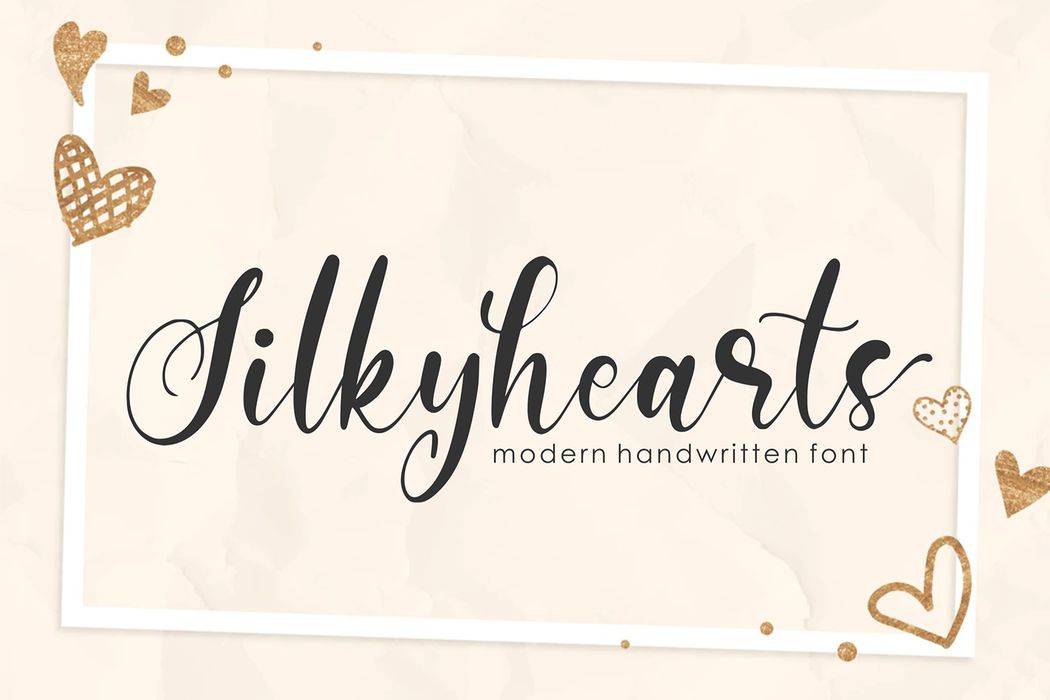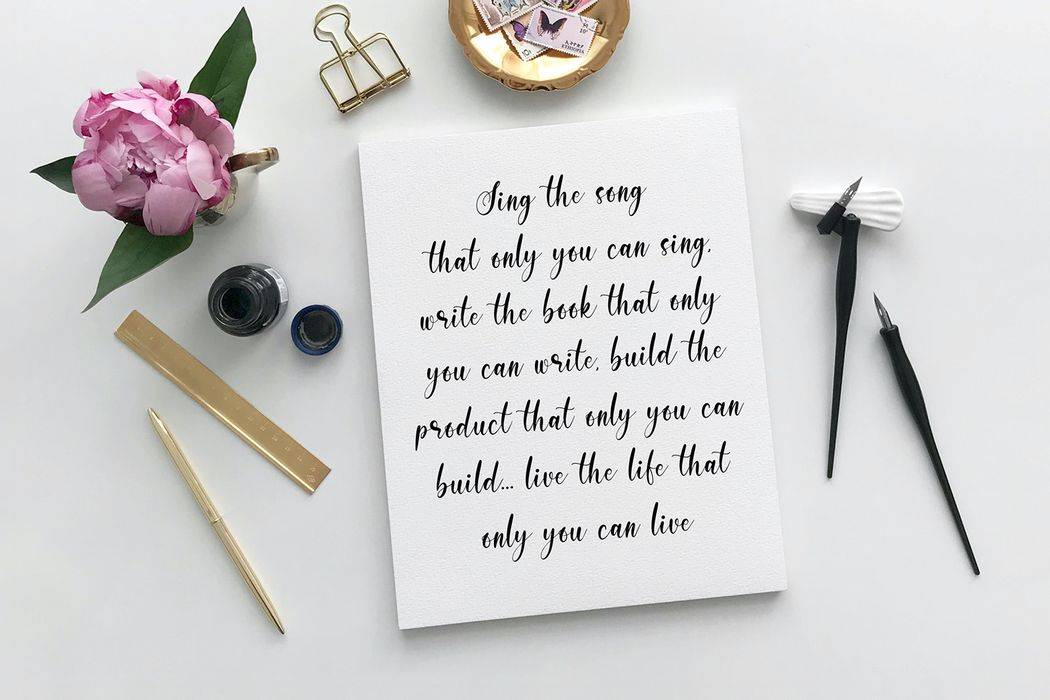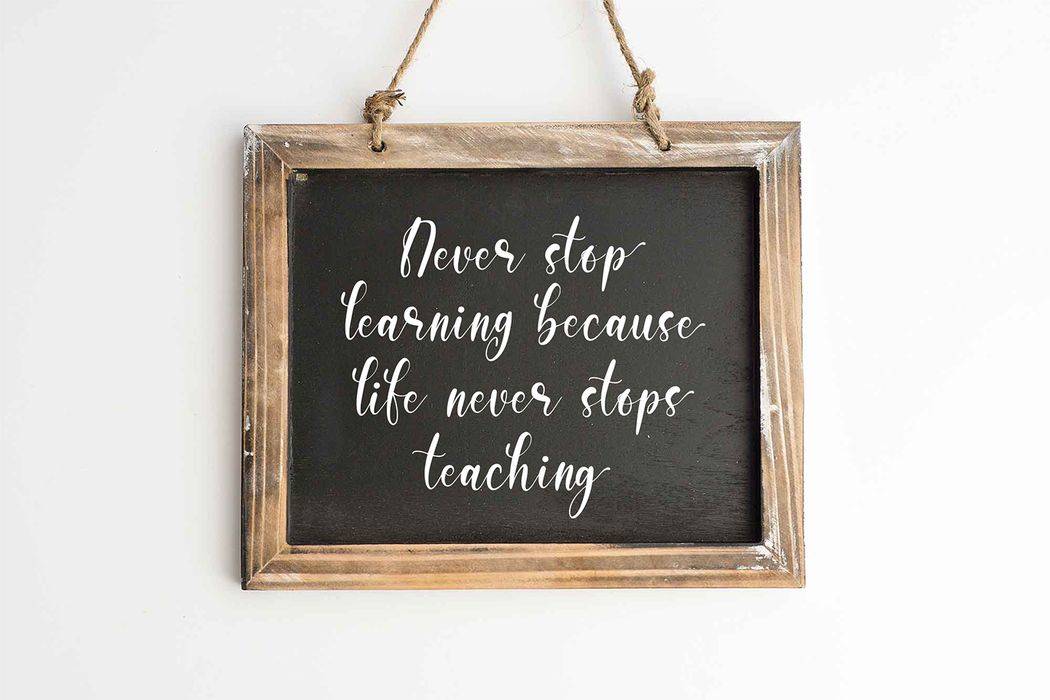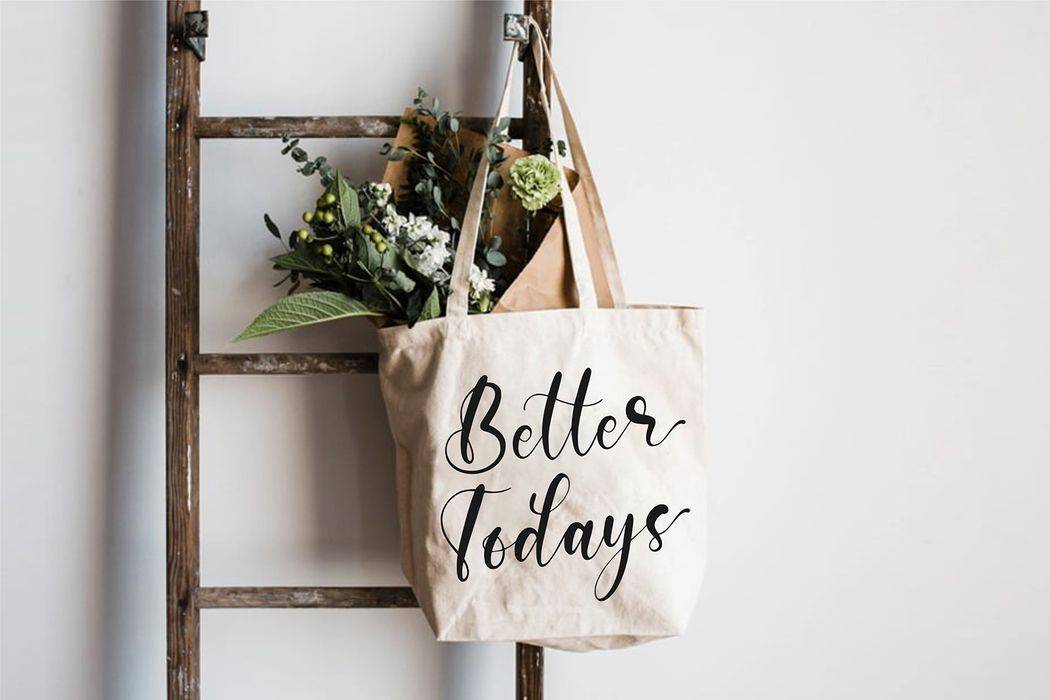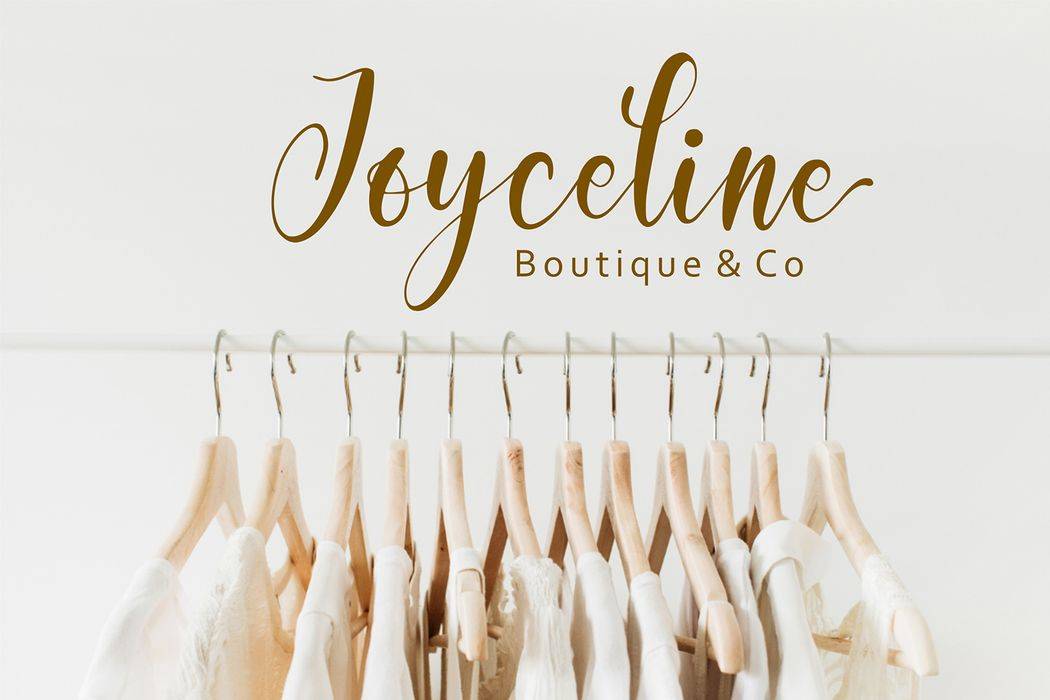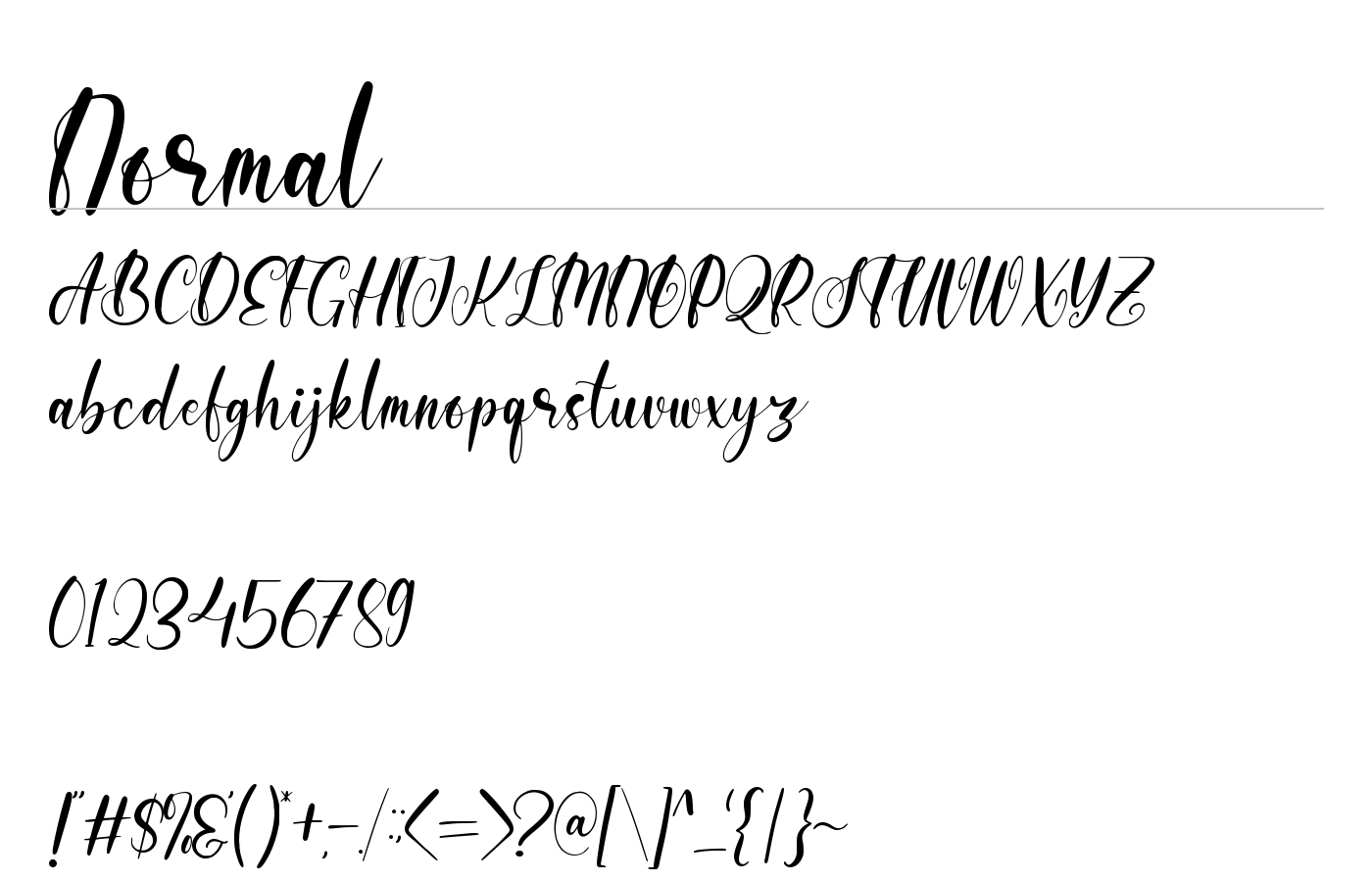
Silkyhearts is an elegant script font featuring flowing, handwritten letterforms with a delicate, romantic flair. Its smooth, slightly condensed strokes and graceful curves make it ideal for invitations, branding, and creative projects that seek a personal and sophisticated touch. Perfect for adding a stylish and feminine feel, this font works beautifully in headlines and decorative texts where charm and clarity are key.
Silkyhearts Font
About Silkyhearts Font